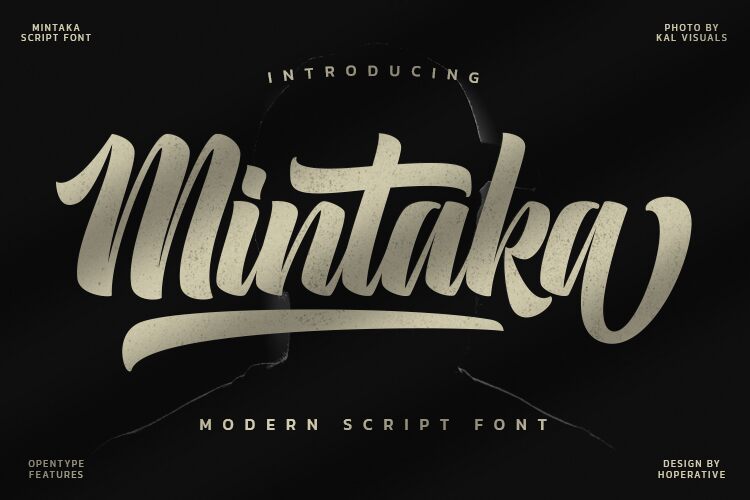
Mintaka, the brainchild of Hoperative, is a modern brush font that boasts a semi-bold weight and semi-condensed width. This unique fusion of design elements makes it perfect for projects that require a bold yet refined touch. From eye-catching headlines to elegant logos, Mintaka delivers an unmistakable presence that captures attention and leaves a lasting impression. Whether you're working on branding materials, packaging designs or marketing collateral, this versatile typeface can elevate any project to new heights. With its bold strokes and clean lines, Mintaka is the ideal choice for those seeking a touch of sophistication in their work.